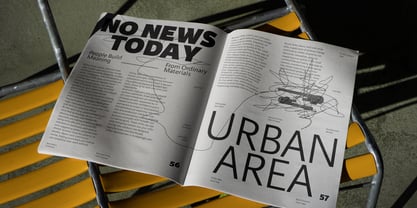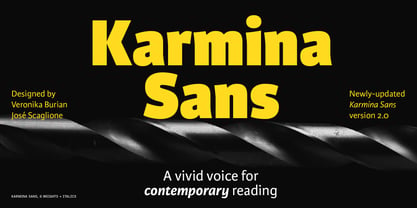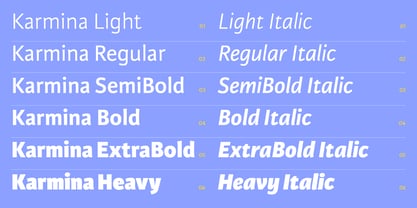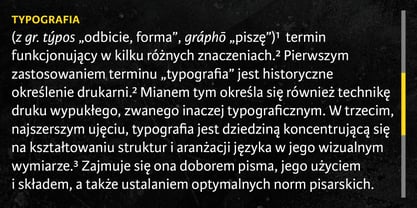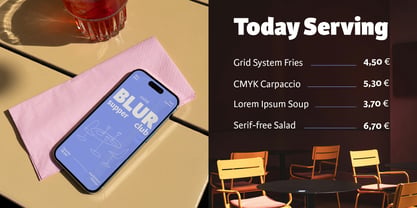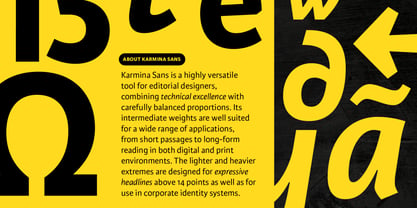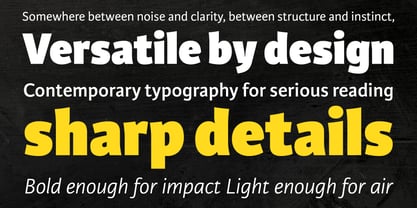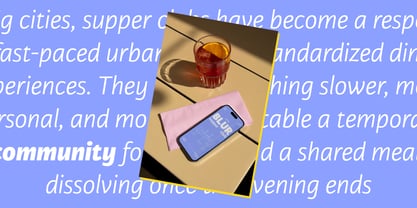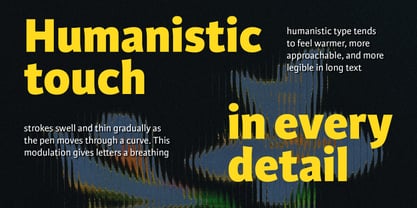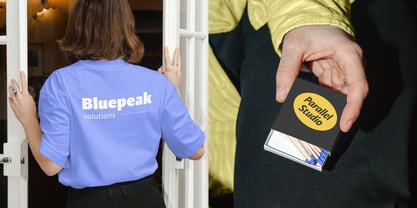
Karmina Sans
by TypeTogether
The Karmina Sans Font Family was designed by Veronika Burian, José Scaglione and published by TypeTogether. Karmina Sans contains 12 styles and family package options. More about this family
Karmina Sans follows the steps of its successful award winner cousin, Karmina Serif. It shares the same technical excellence and it achieves similar stylistic features, but the new sans serif version proposes a much more versatile tool for editorial designers. Karmina Sans has six different weights with their matching italics, from light to heavy and from continuous text to headlines to small text. The heavy weight delivers one of the darkest and most powerful impressions out there while the text weights are perfect companions for Karmina Serif. The OpenType Pro package of Karmina Sans includes nearly 900 characters per weight, including small caps, fractions, old style and lining numbers, scientific superior/inferior figures, complete ordinal and inferior alphabet, and a set of symbols and arrows. It supports over 40 languages that use the Latin extended alphabet.
Designers: Veronika Burian, José Scaglione
Foundry: TypeTogether